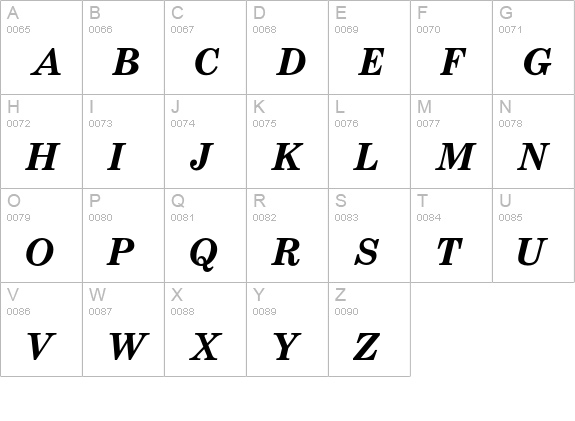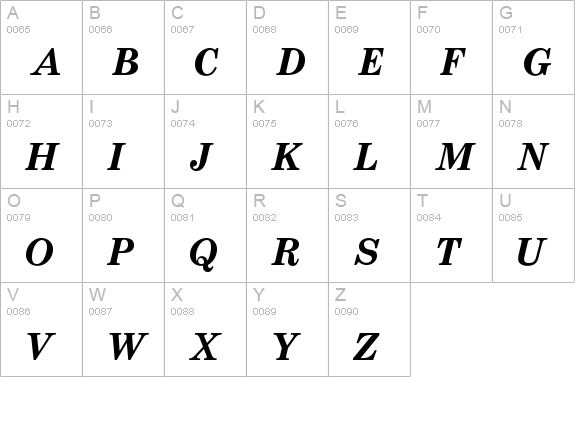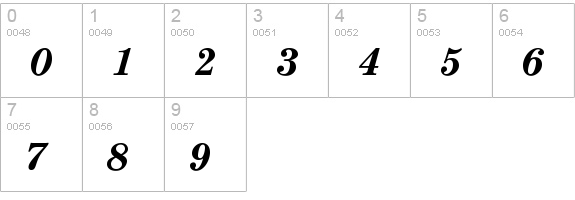
PM SchoolBook BoldItalic Cyrillic Font Details
PM SchoolBook BoldItalic Cyrillic font is a visually stunning and stylish typeface that combines the best of both boldness and elegance. With its unique blend of thick strokes and slanted italics, this font exudes confidence and sophistication. Designed specifically for Cyrillic scripts, PM SchoolBook BoldItalic Cyrillic font offers a wide range of characters that are beautifully crafted and easy to read. Each letter is meticulously designed to ensure optimal legibility, making it perfect for a variety of projects, including branding, advertising, and editorial designs. What sets PM SchoolBook BoldItalic Cyrillic font apart is that it is freely available to download at FontsMarket.com. This means that you can easily enhance your projects with this stunning font without breaking the bank. Whether you're a professional designer or a student working on a personal project, this font provides an incredible value. With its bold and italic variations, PM SchoolBook BoldItalic Cyrillic font allows you to create dynamic and eye-catching designs. The bold style adds a sense of strength and impact, while the italic style adds a touch of elegance and sophistication. The combination of these two styles makes this font truly versatile and suitable for a wide range of design applications. The attention to detail in PM SchoolBook BoldItalic Cyrillic font is evident in its smooth curves and clean lines. Each character is expertly crafted to ensure seamless readability, even at small sizes. This font is designed to make your text stand out, whether it's used for headlines, subheadings, or body text. Overall, PM SchoolBook BoldItalic Cyrillic font is a must-have for any designer or typographer looking to add a touch of boldness and elegance to their projects. And with its availability for free download at FontsMarket.com, there's no reason not to enhance your designs with this stunning typeface.